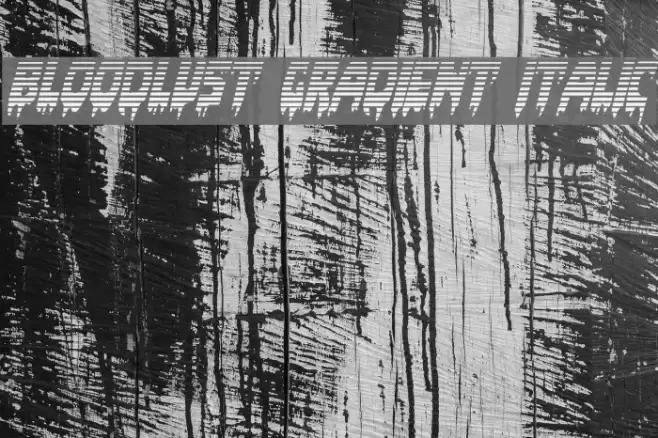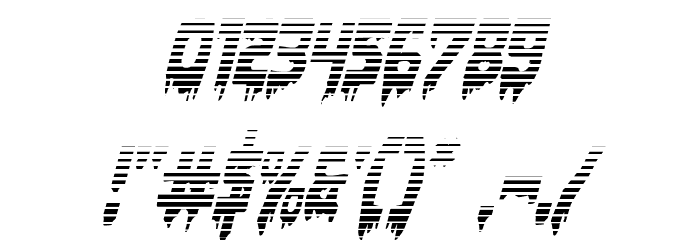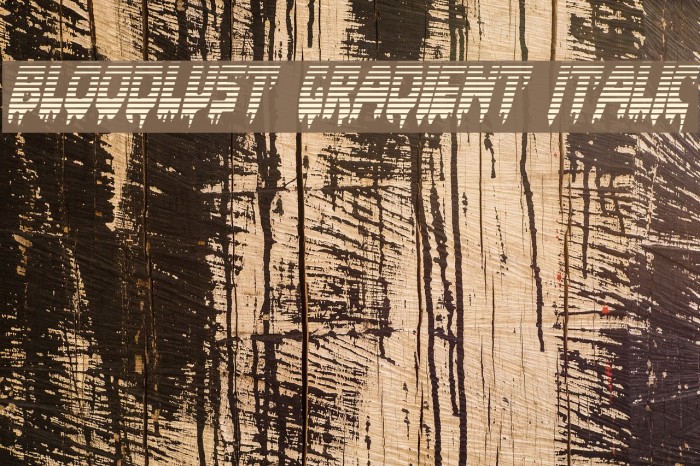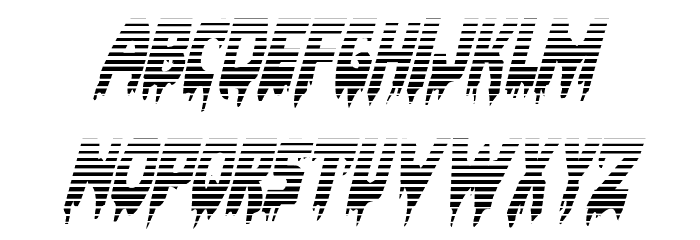
Bloodlust Gradient Italic Font
Bloodlust Gradient Italic Description
This font features a dramatic and edgy design with a gradient effect that gives the impression of dripping or melting. The characters are sharply angled and italicized, adding a sense of movement and urgency. The strokes are bold and the gradient effect creates a striking visual contrast, making it ideal for attention-grabbing designs. The unique style is reminiscent of horror or thriller themes, making it suitable for projects that require a bold and impactful aesthetic.
A bold, gradient, and italicized font with a dramatic, edgy style from Uncategorized fonts.
- Proposed Projects: Ideal for horror movie posters, Halloween event flyers, video game titles, and edgy branding materials.